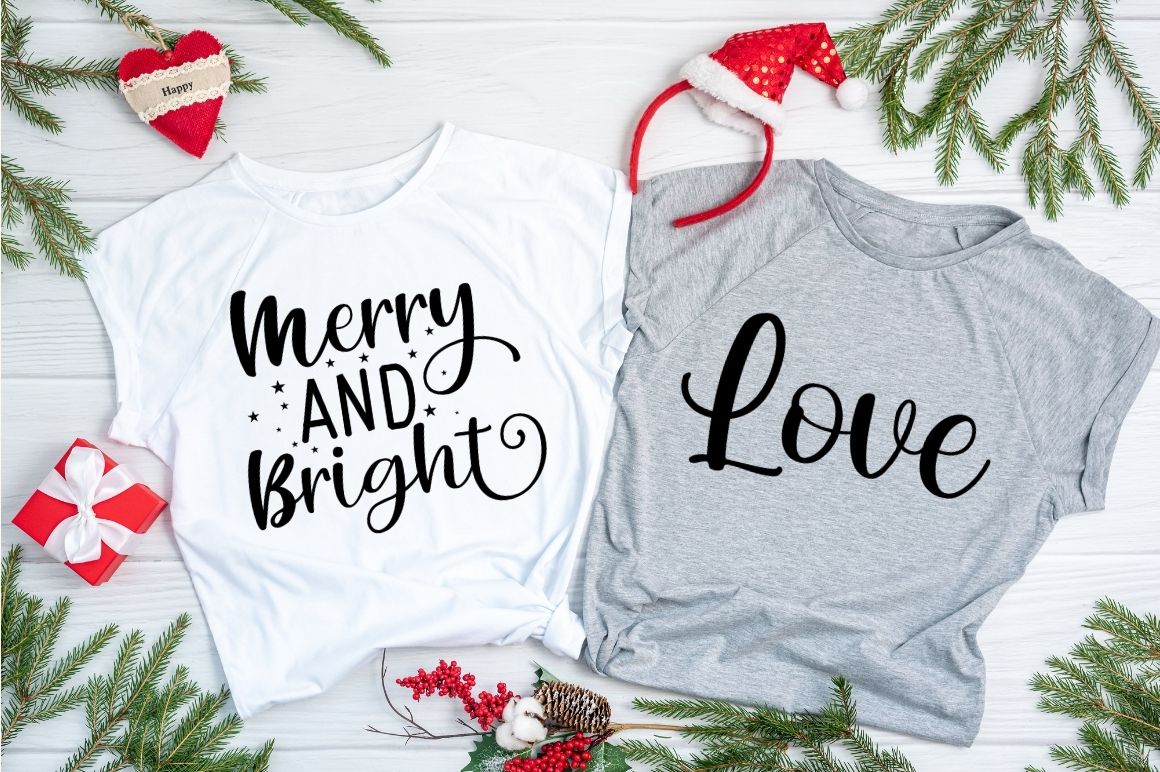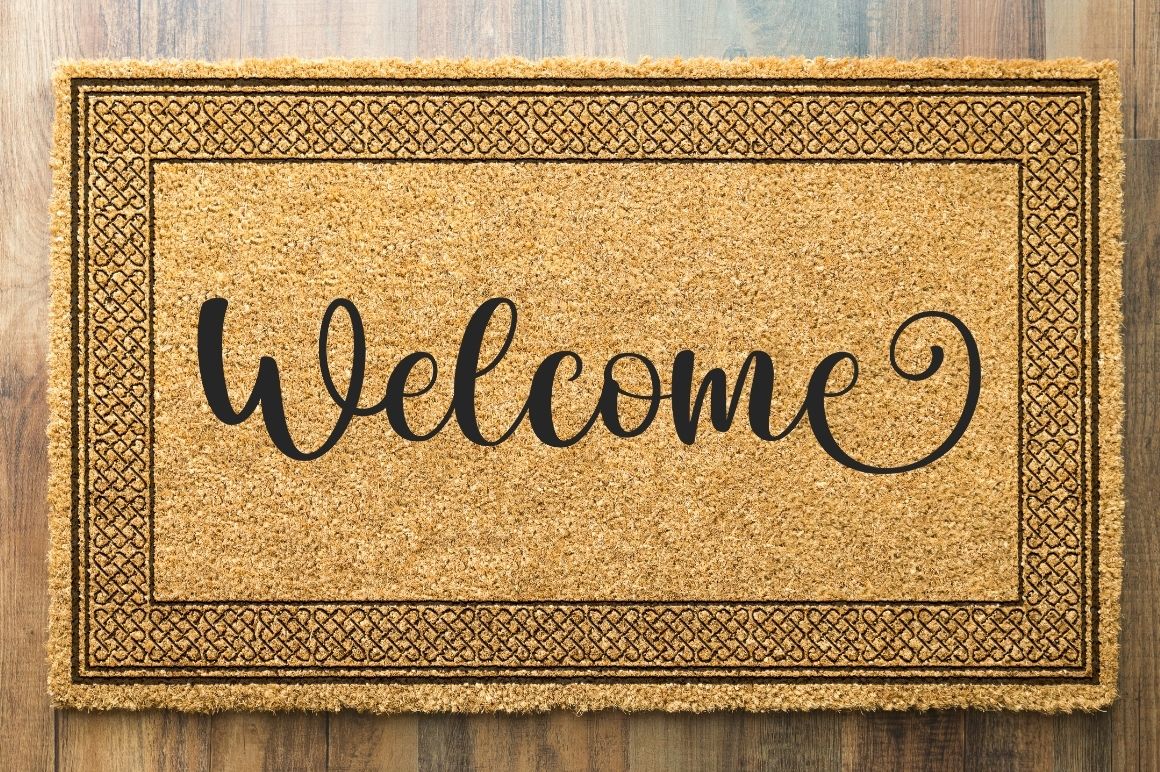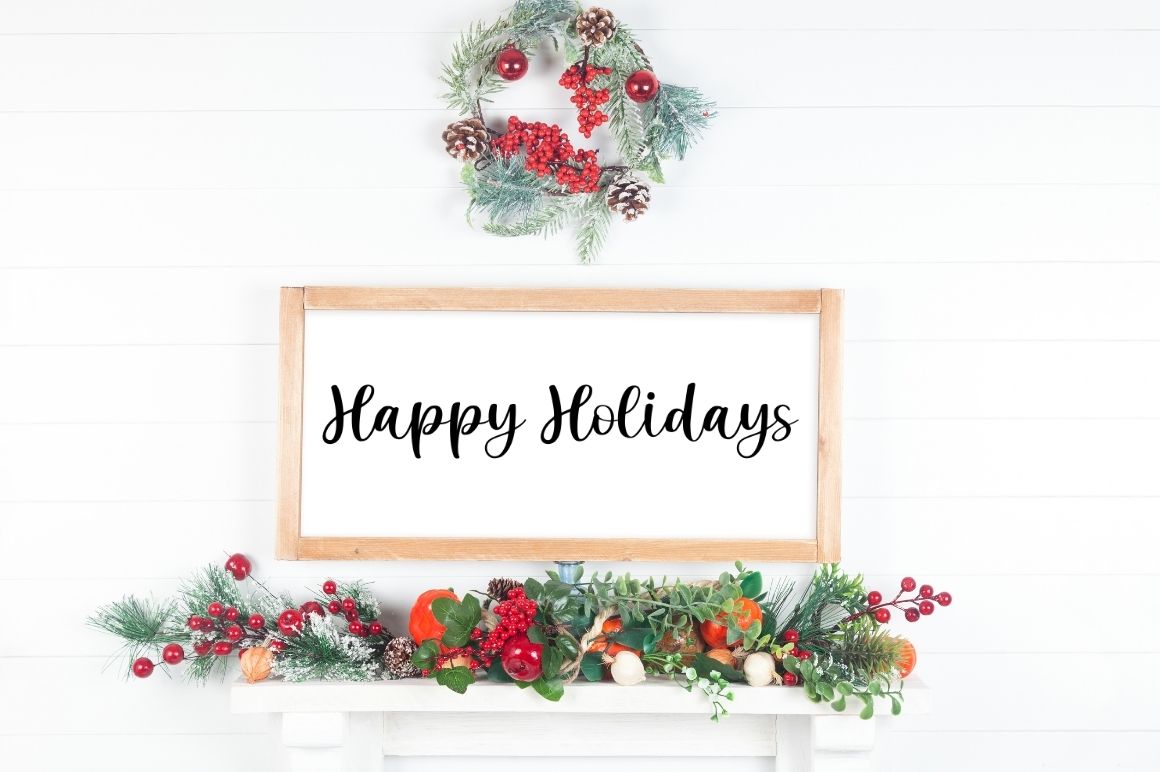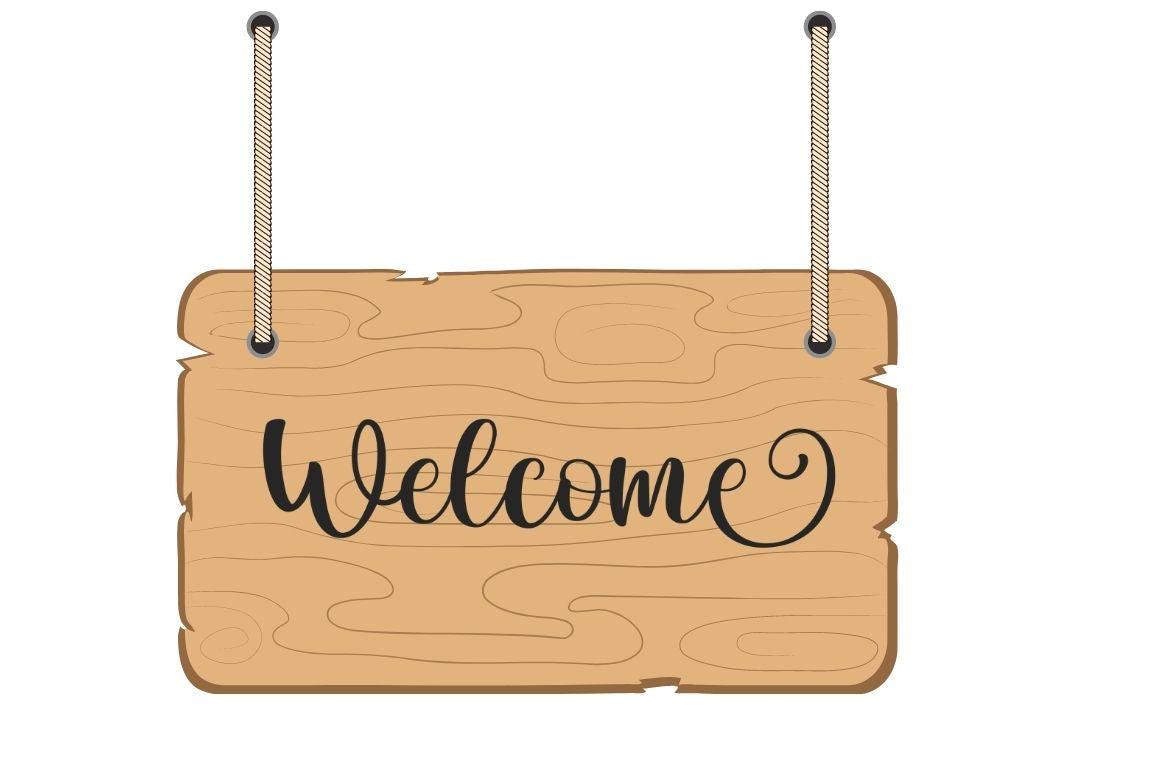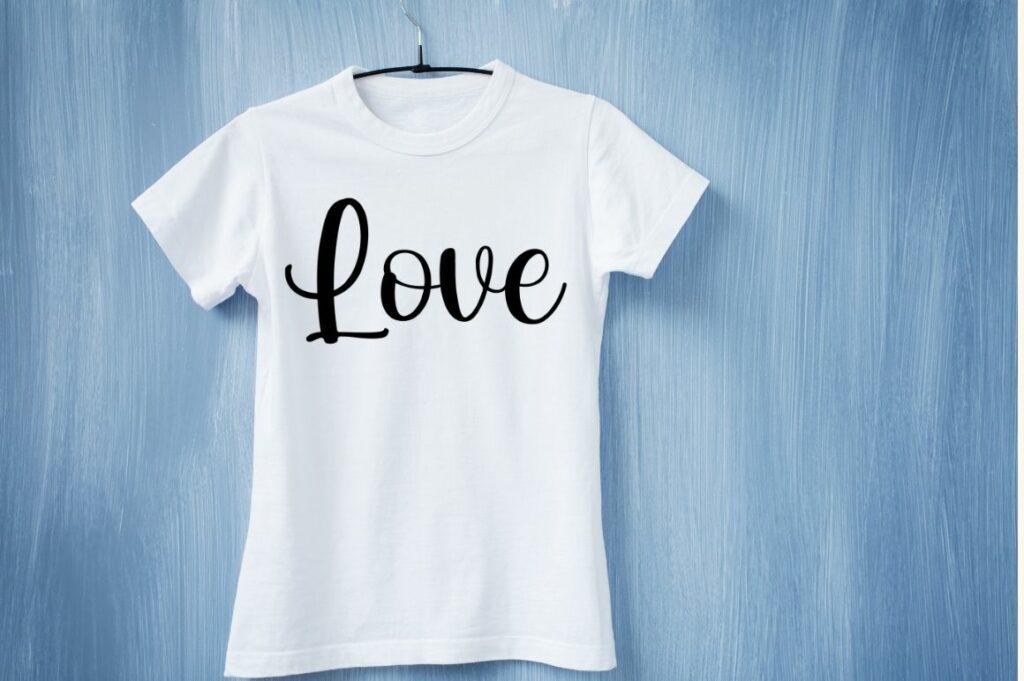
The Madelin – Handwritten Script Font
About The Madelin – Handwritten Script Font
The Madelin is an eternal and romantic handwritten font. It is PUA encoded which means you can access all of the glyphs and swashes with ease! Add it confidently to your projects, and it will elevate each of your designs. What is included: . The Madelin OTF . The Madelin TTF Enjoy the font, feel free to comment or feedback, send me PM or email. Thank you!